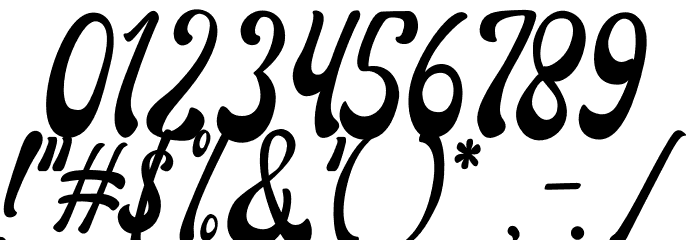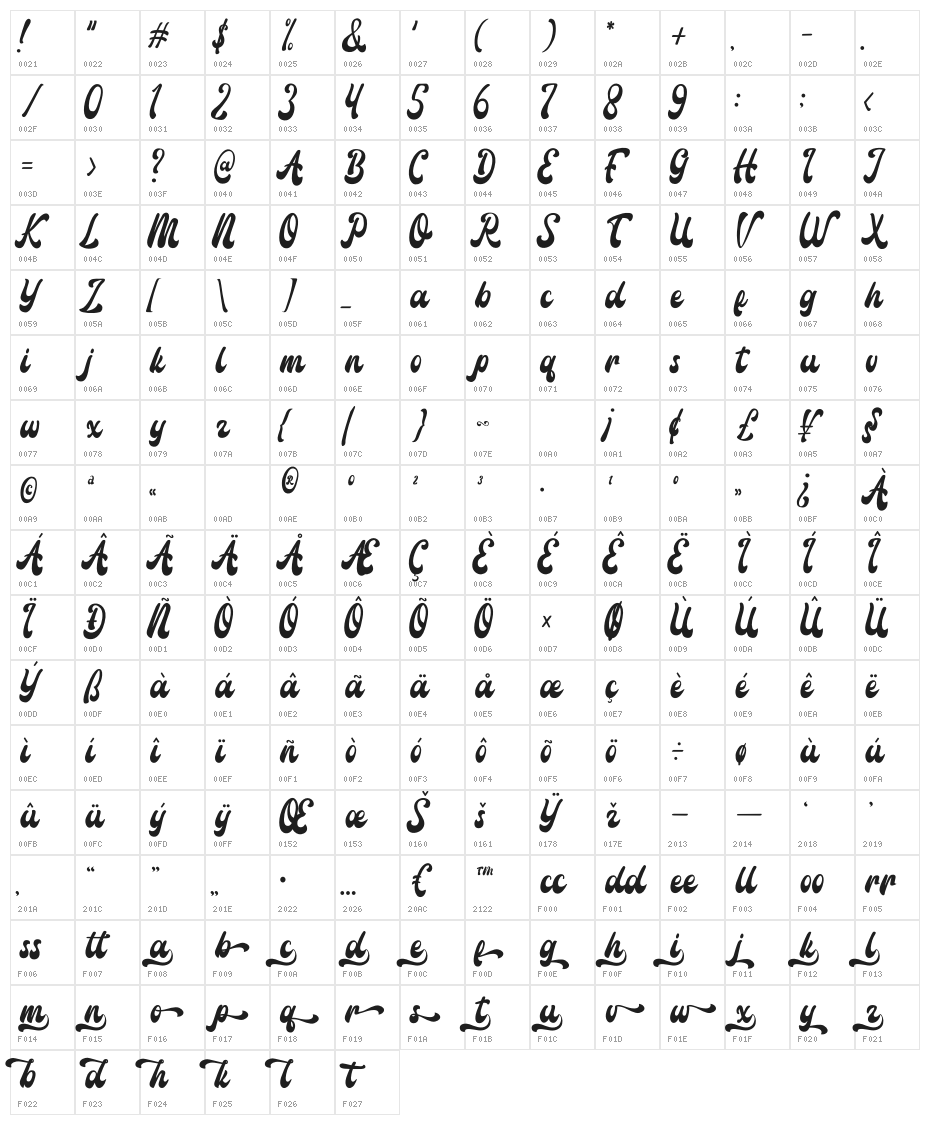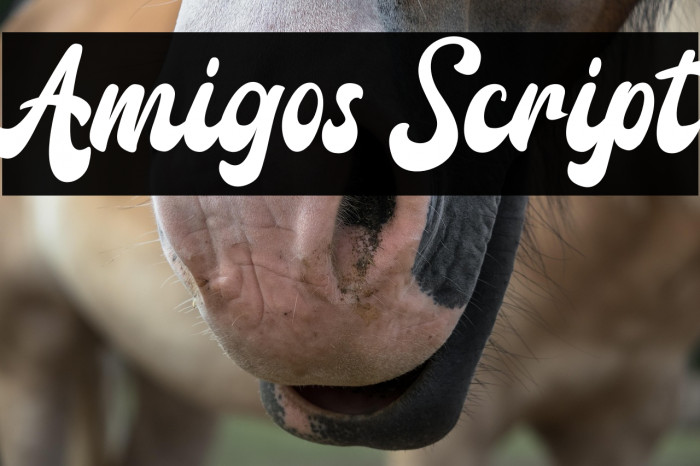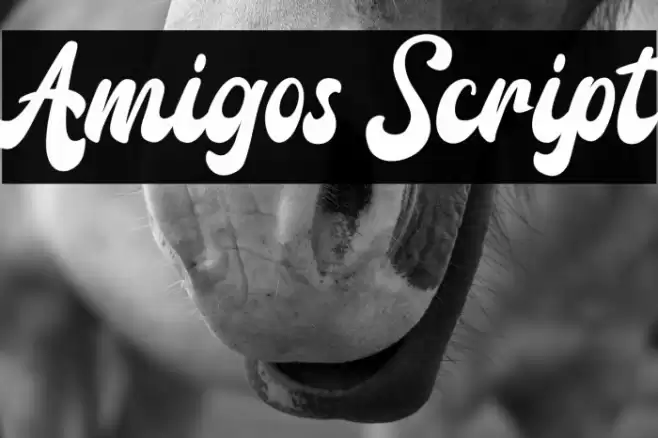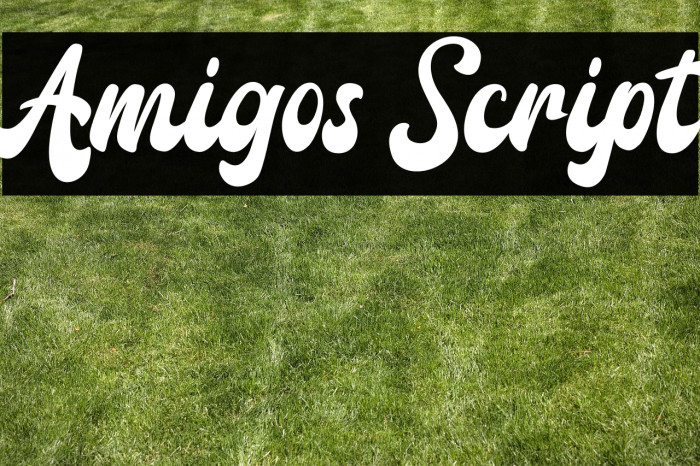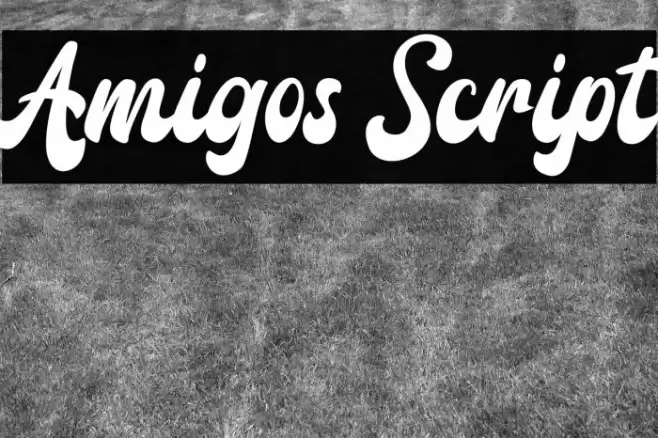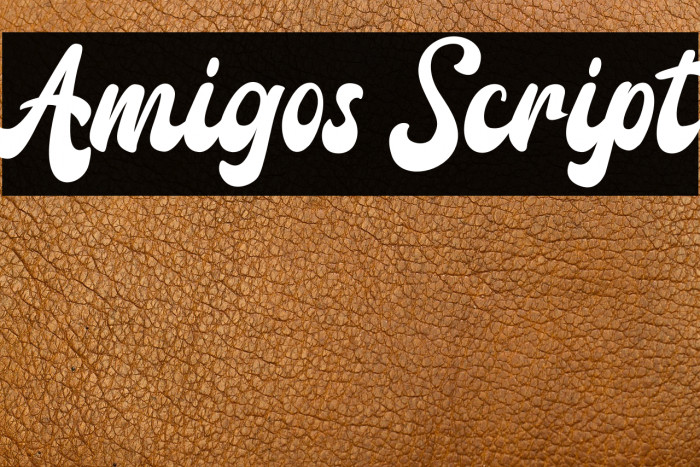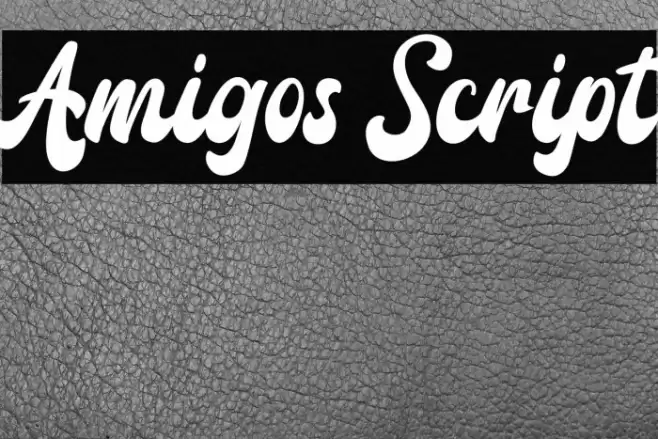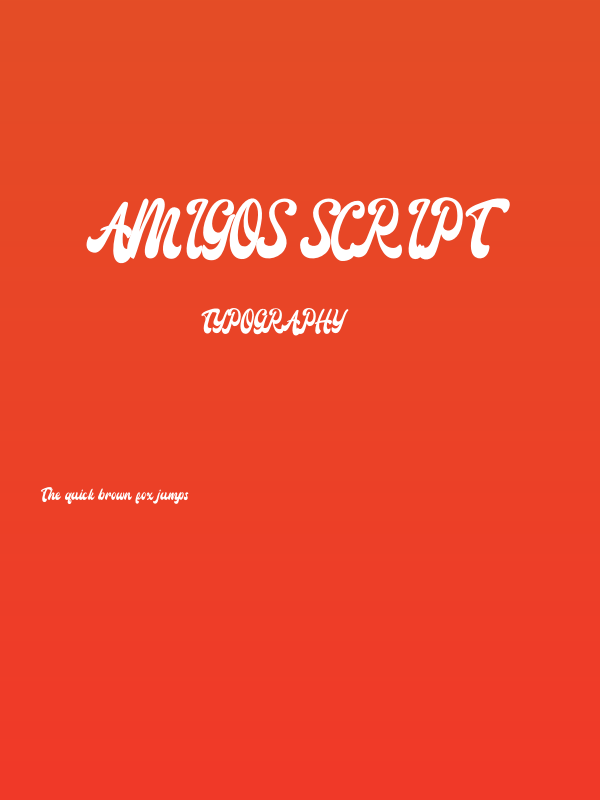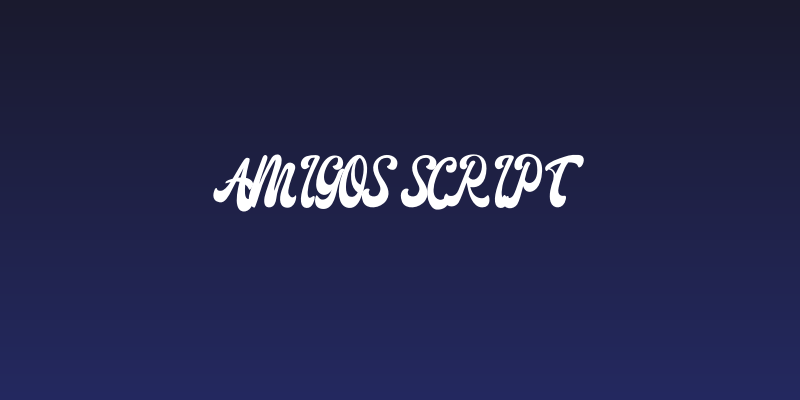
Amigos Script Font
Amigos Script Description
This font exudes a lively and dynamic energy, characterized by its bold, flowing script style. The letters are interconnected, creating a sense of continuity and movement. The strokes are thick and consistent, with a slight slant that adds to its casual and friendly appearance. The uppercase letters are slightly more ornate, with flourishes that enhance their decorative appeal. The lowercase letters maintain a smooth and cohesive flow, making them highly legible despite their script nature. Numbers and special characters are crafted with the same attention to detail, ensuring a harmonious overall look.